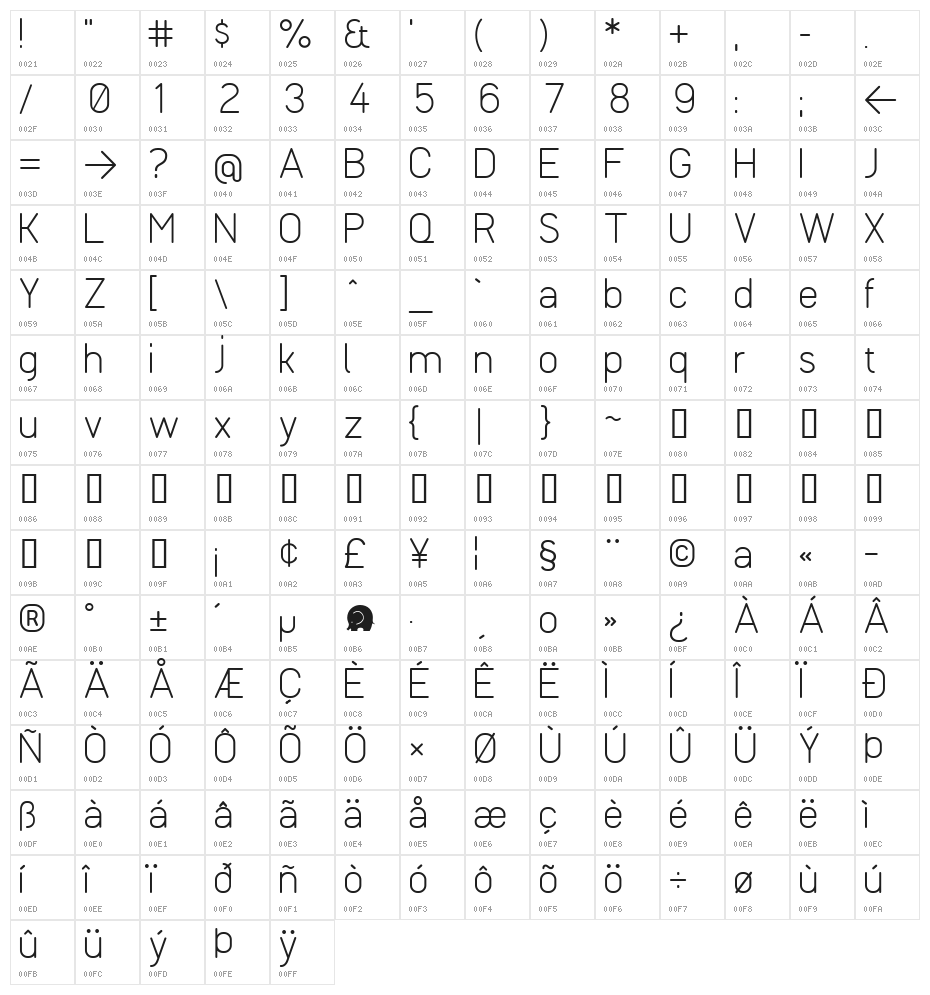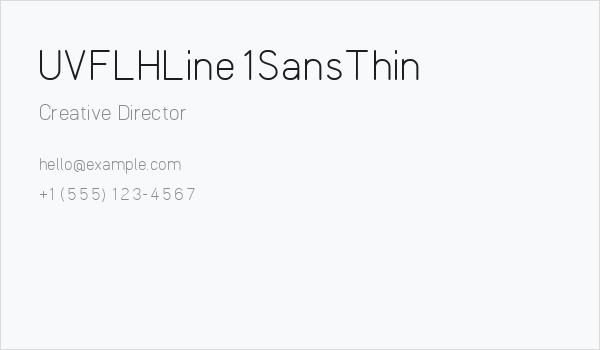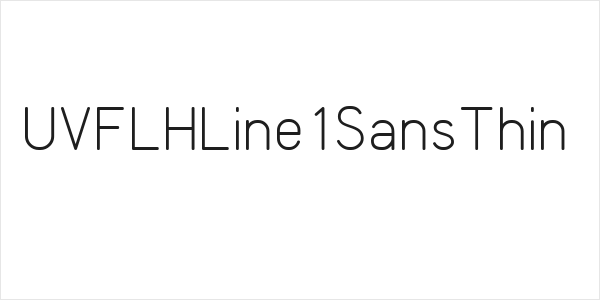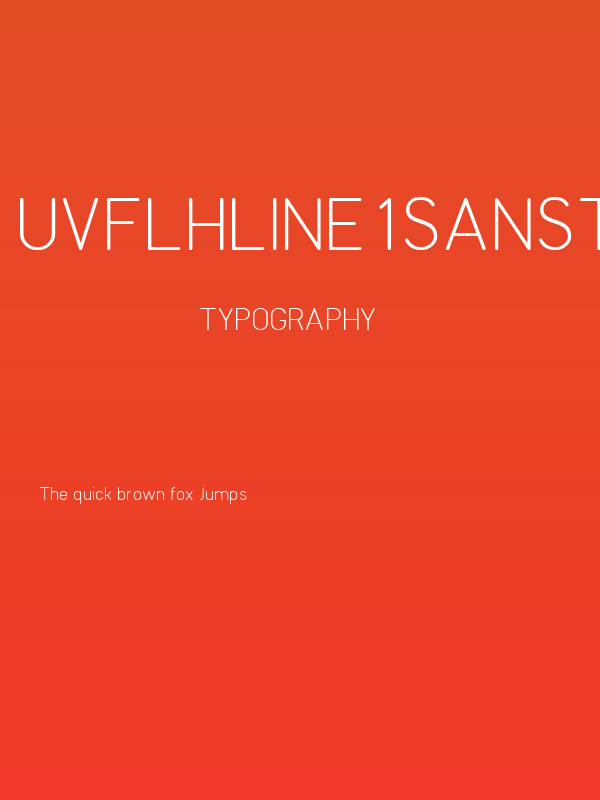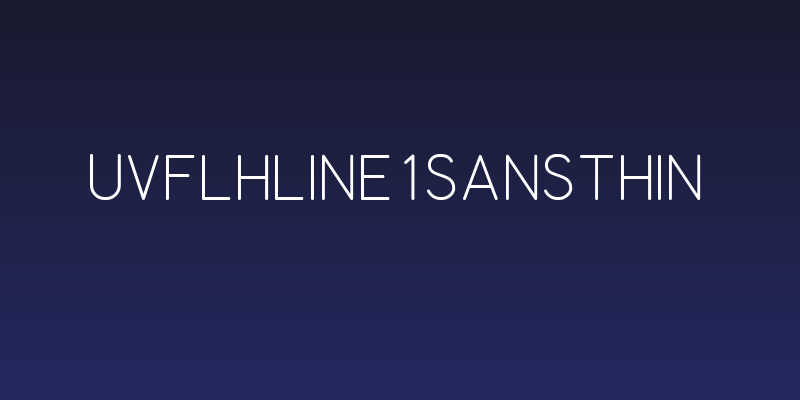
UVFLHLine1SansThin Font
UVFLHLine1SansThin Description
This typeface presents a clean and modern aesthetic with its thin, uniform strokes and geometric structure. The characters are well-proportioned, offering a sense of balance and clarity. The uppercase letters are slightly taller than the lowercase, providing a distinct hierarchy. The numerals and special characters maintain the same thin stroke, ensuring consistency across the font. The overall design is minimalistic, making it versatile for various applications.